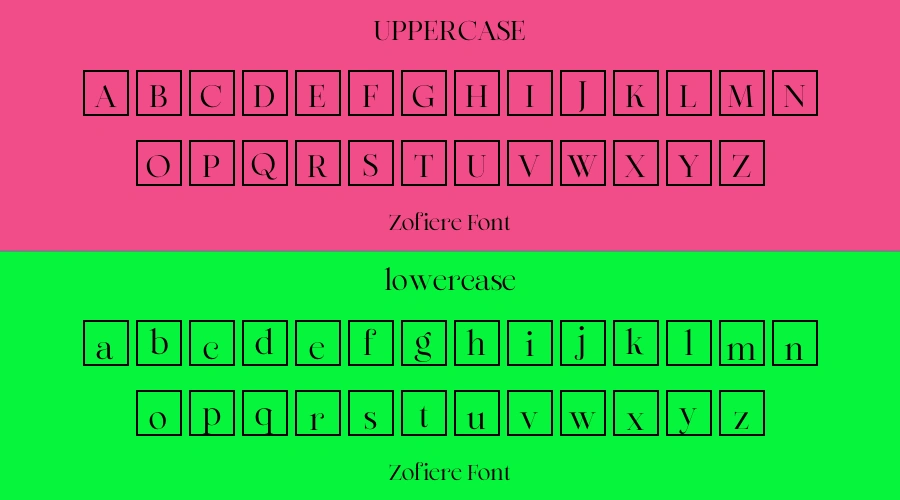
About Zofiere Font
When typographic excellence matters most, Zofiere Font delivers through its thoughtful blend of decorative alternates and professional grade. Specially crafted for corporate reports, it offers the functionality and user trust required for sophisticated design work. Every detail serves a purpose.
The character set showcases thoughtful details like teardrop terminals alongside functional lining figures. This proves especially valuable in image captions, where large format rendering directly influences results. Particular attention was paid to contrast level and regulatory compliance during development.